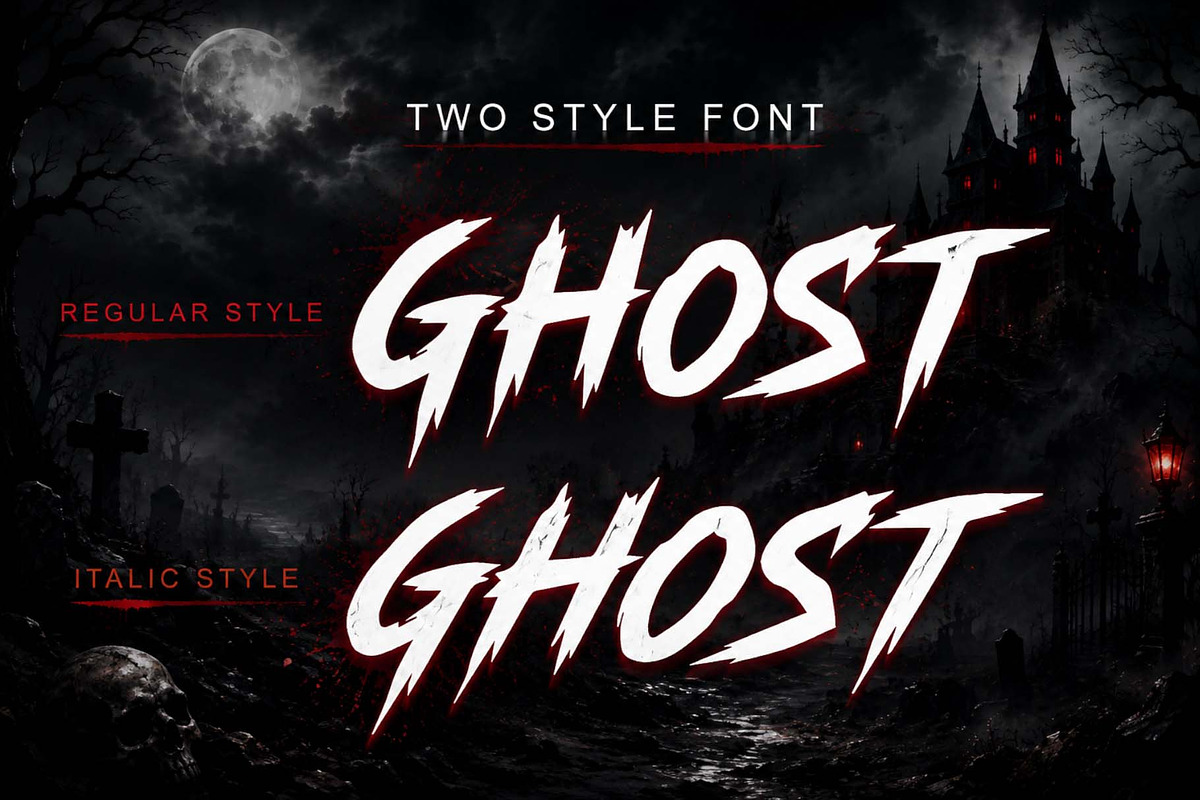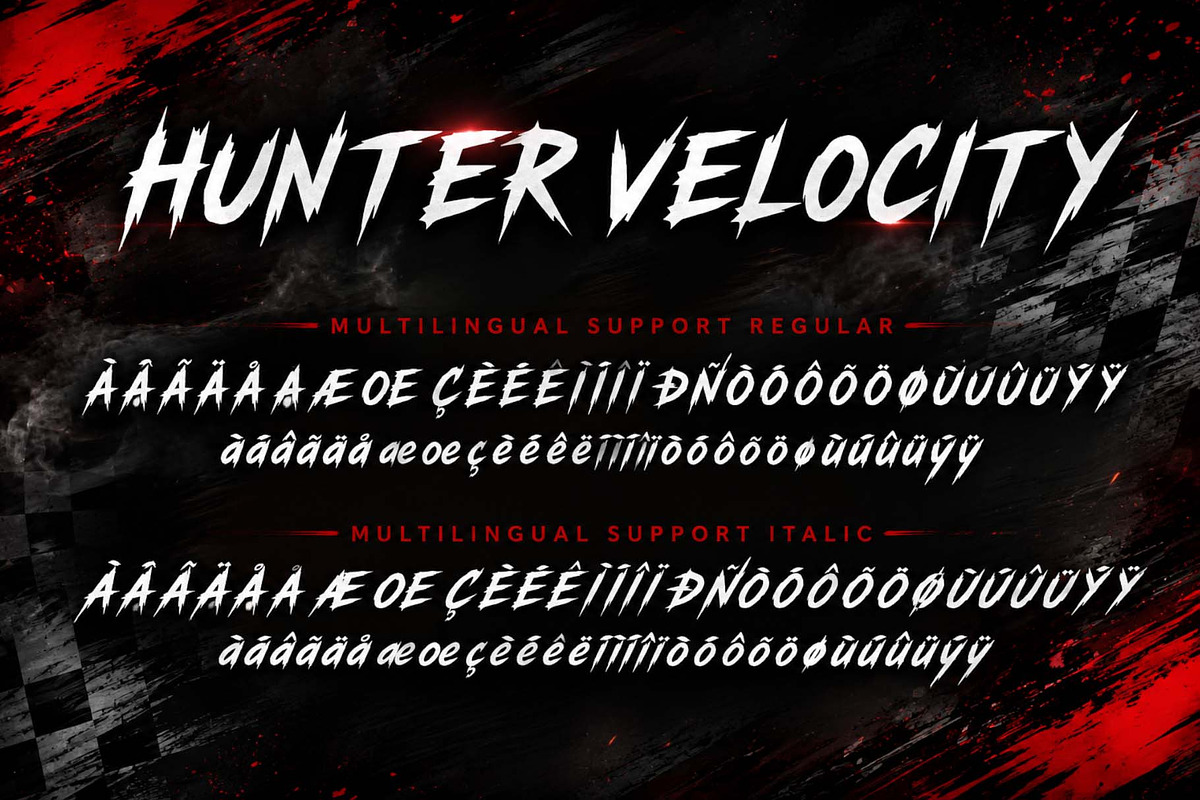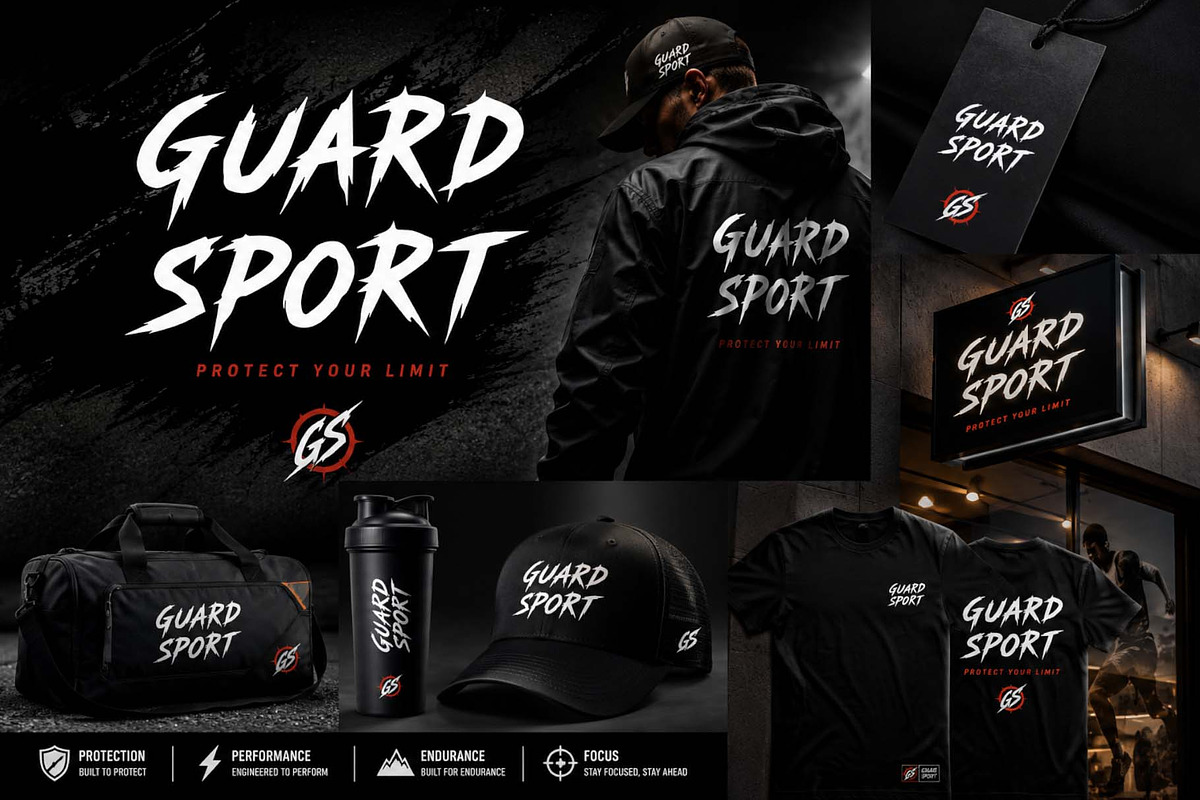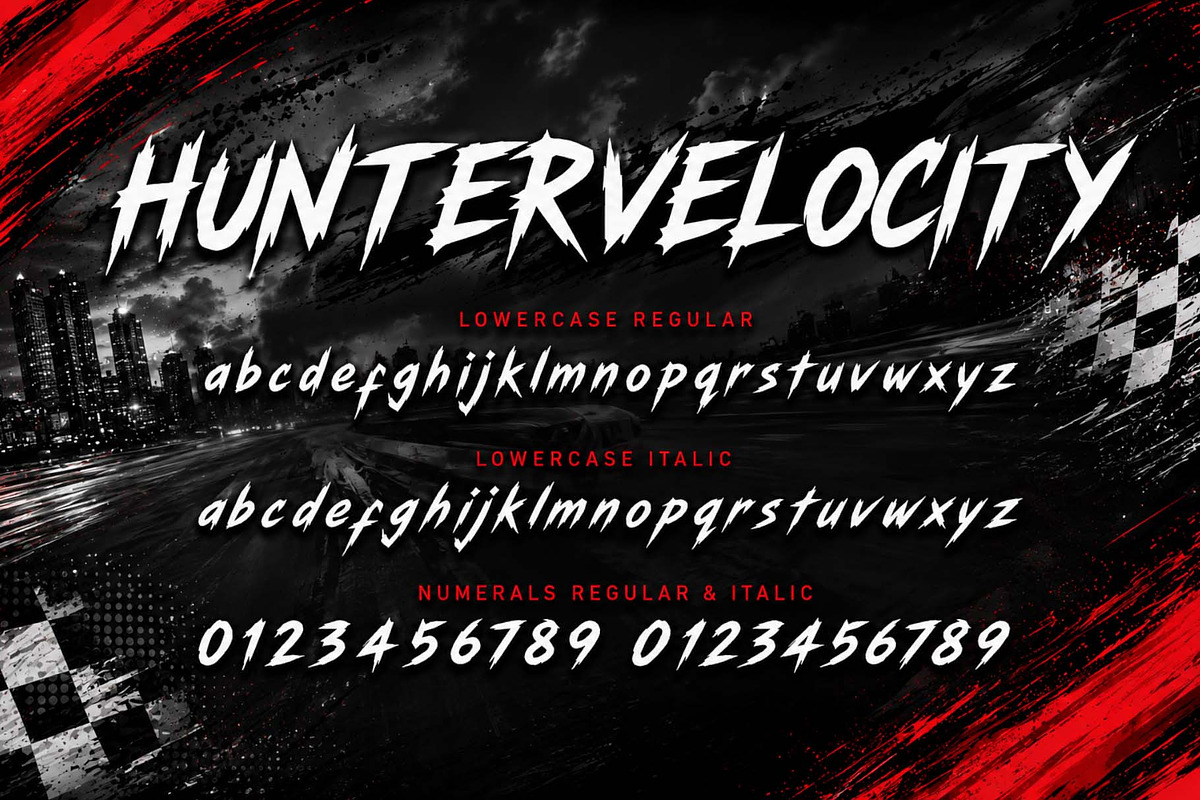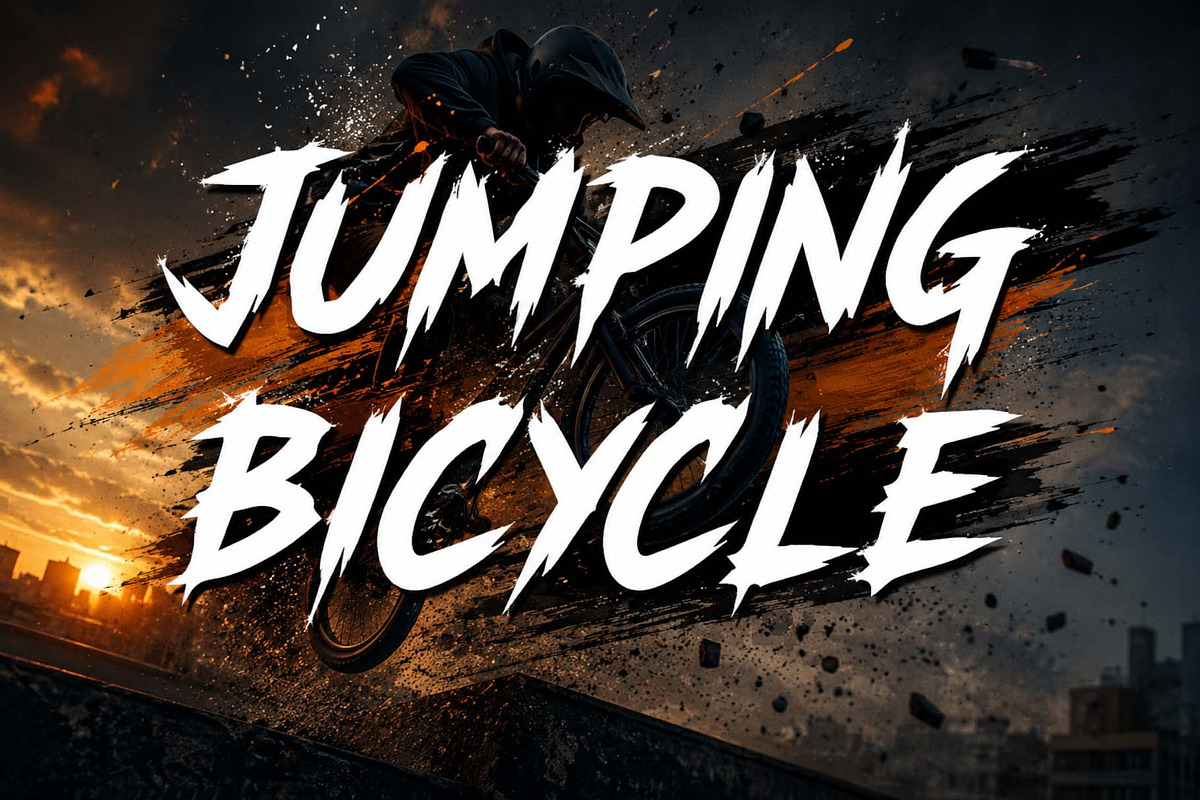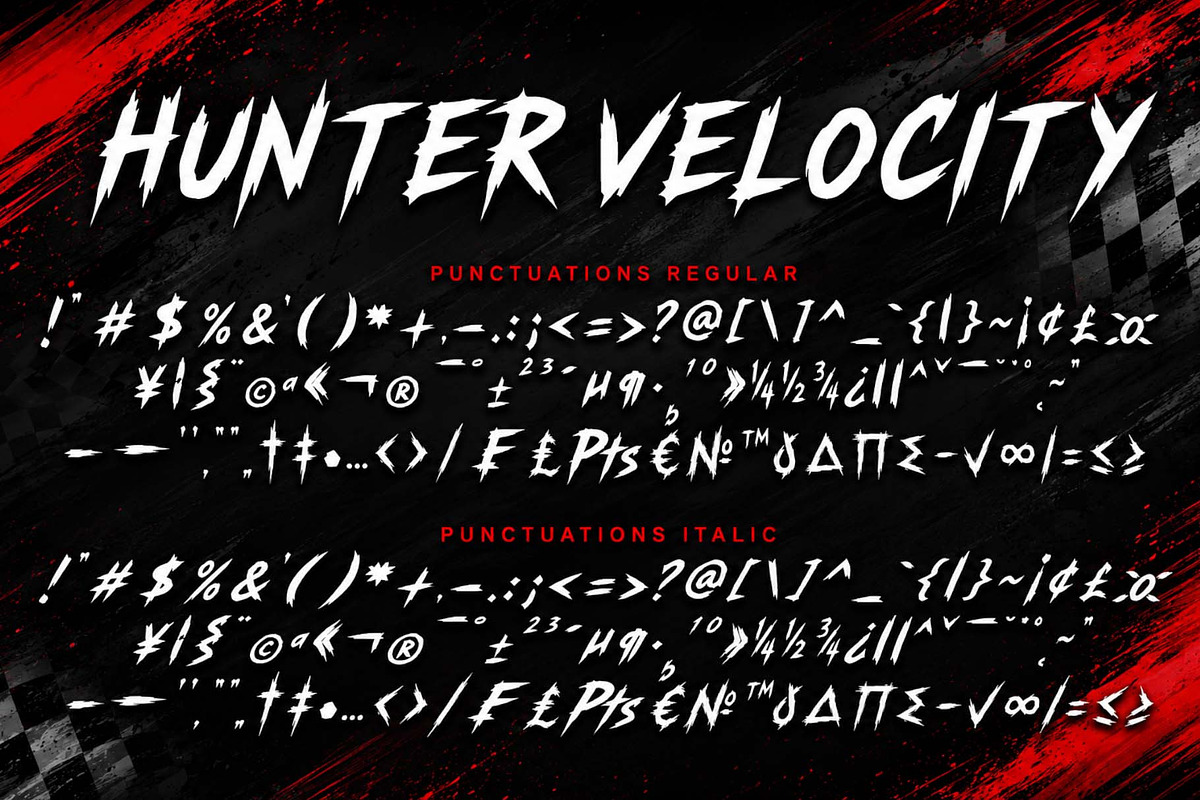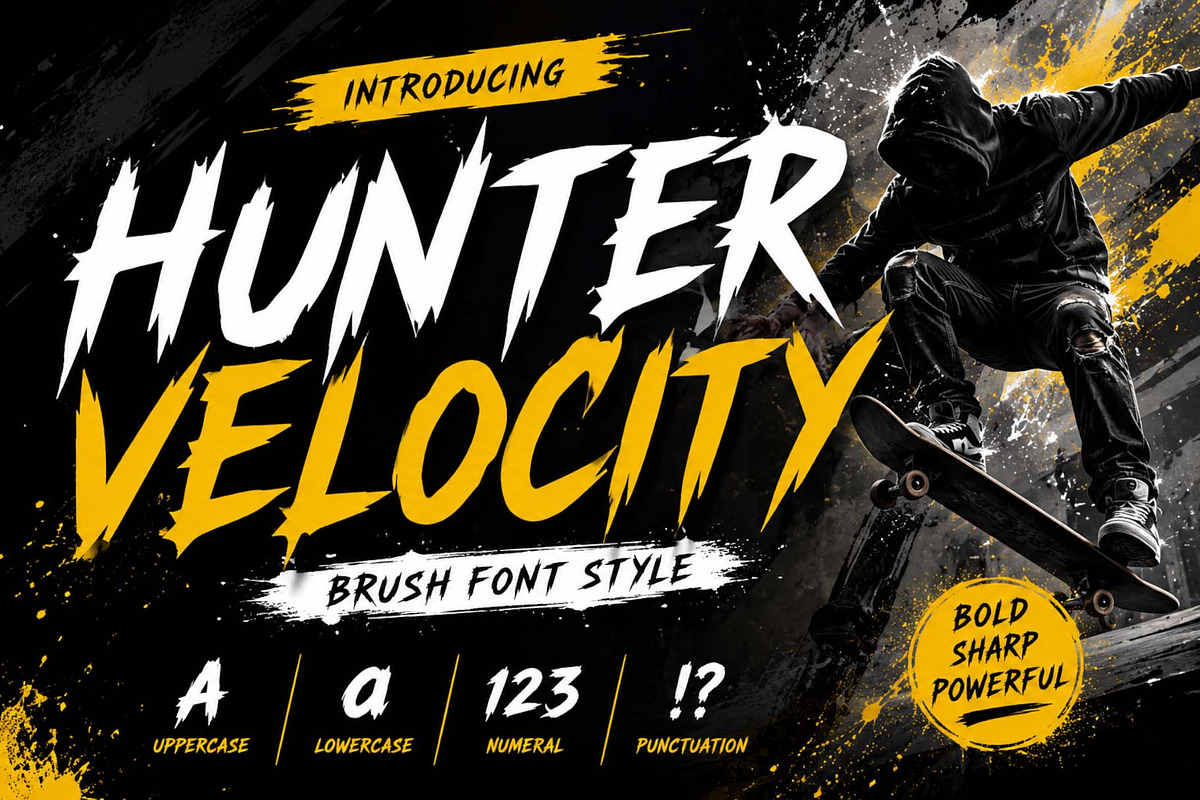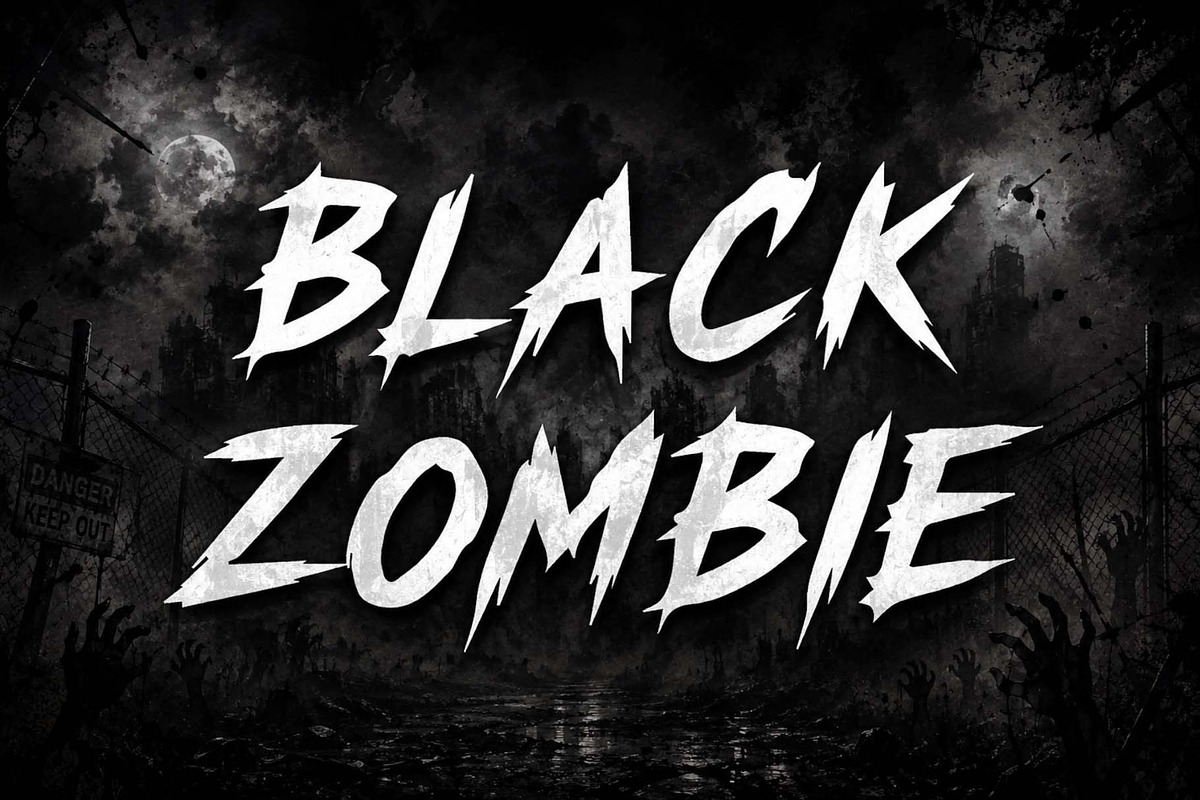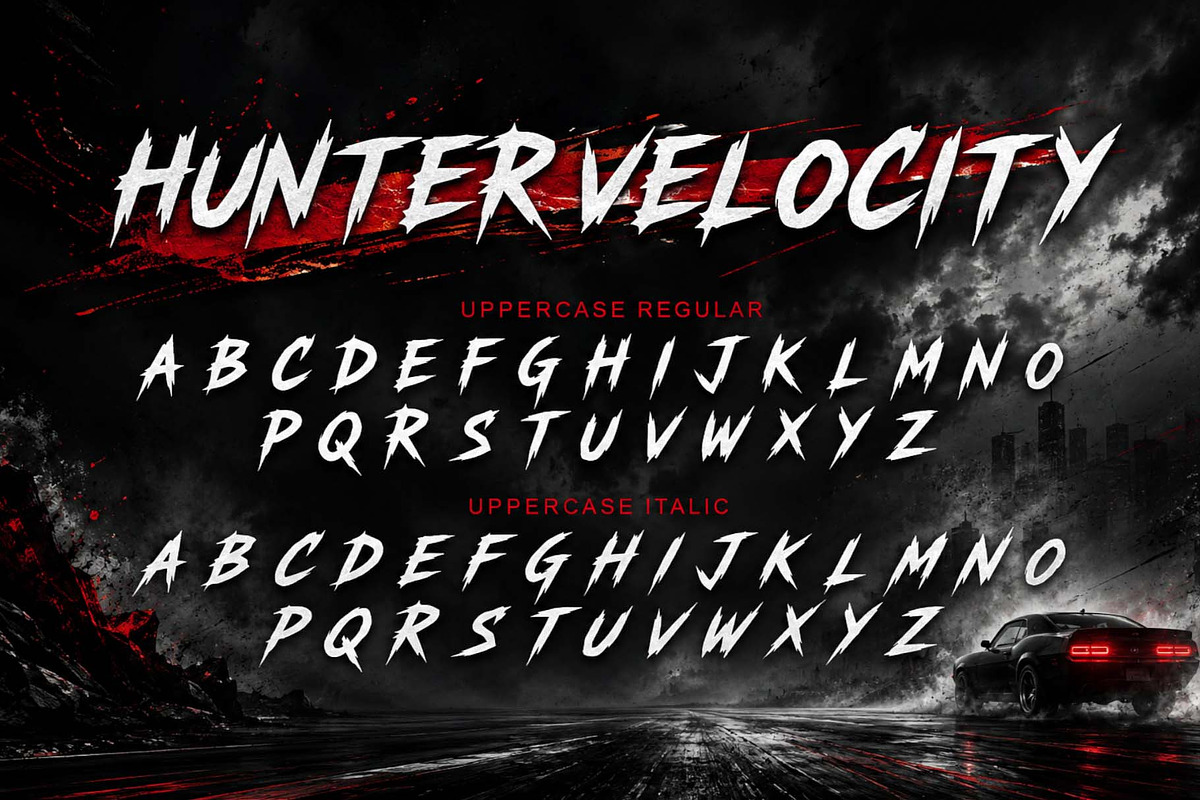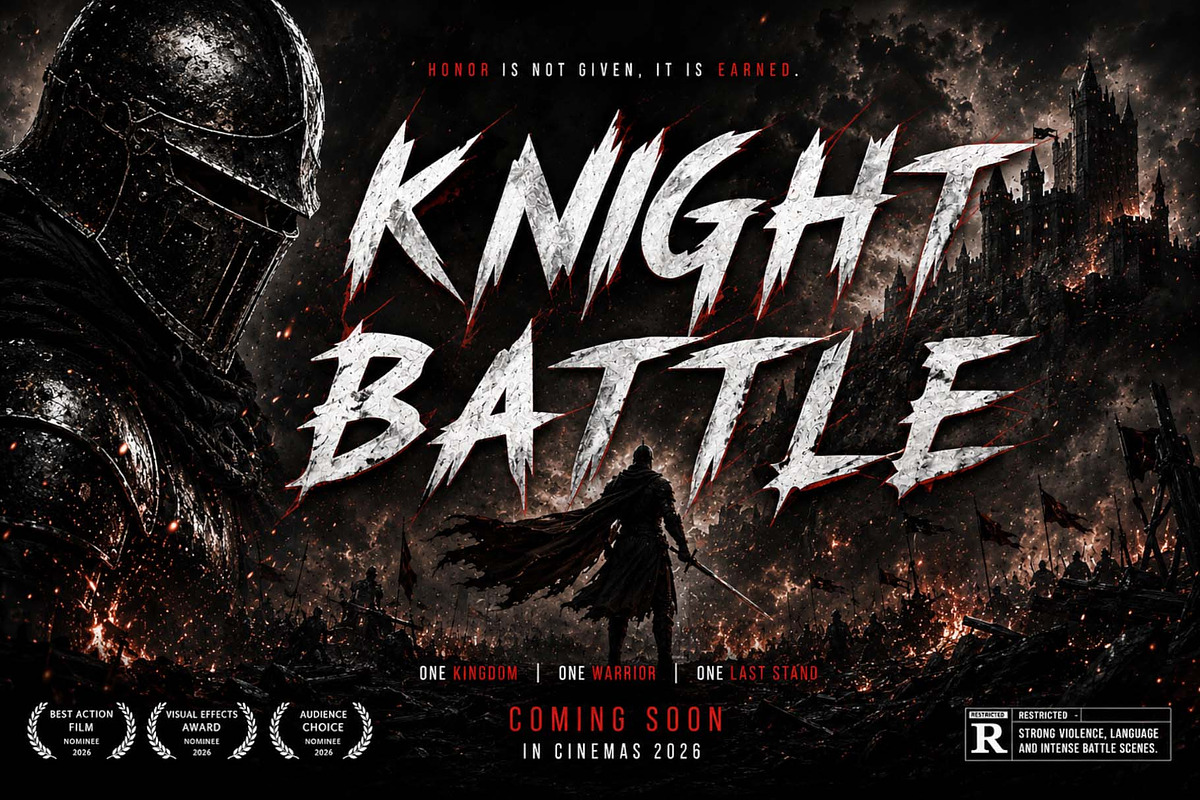
Hunter Velocity
Hunter Velocity is a bold and energetic brush font with sharp strokes that capture speed, power, and a fearless attitude. Perfect for action movie titles, sports branding, gaming, streetwear, posters, and attention-grabbing headlines. The hand-drawn brush style delivers a raw, dynamic, and powerful visual impact in any design. Create unforgettable designs with a font that exudes confidence, movement, and modern urban energy.